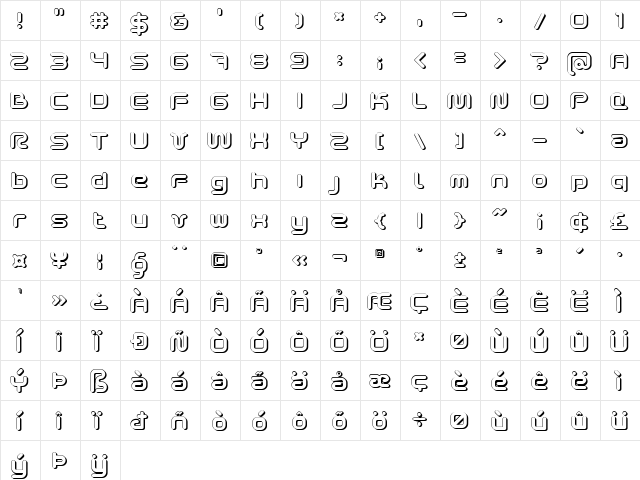
Sci Fied 2002 Ultra Regular
Design Context for Sci Fied 2002 Ultra Typeface
Sci Fied 2002 Ultra channels digital-age aesthetics through its sharp, structured letterforms — ideal for brands that want to signal innovation.
Pro Tip: Use Sci Fied 2002 Ultra in combination with a neutral sans for body text. Let it define the brand voice in headlines while keeping reading comfortable elsewhere.